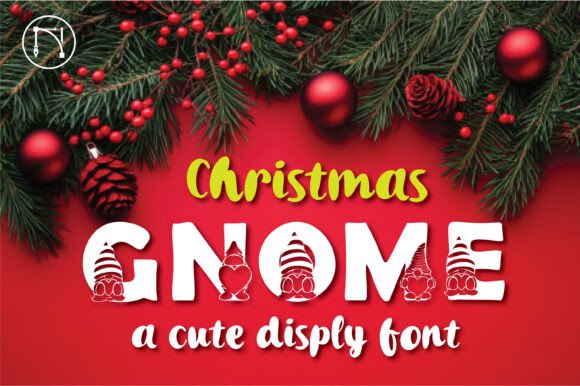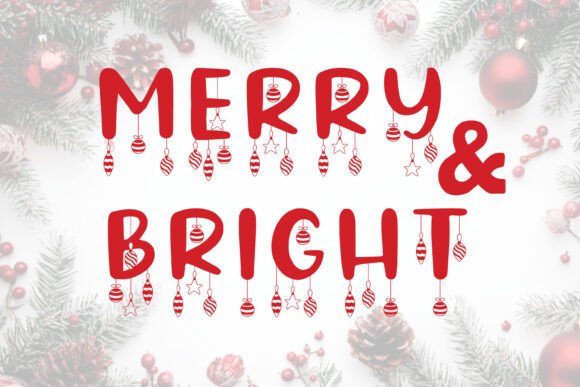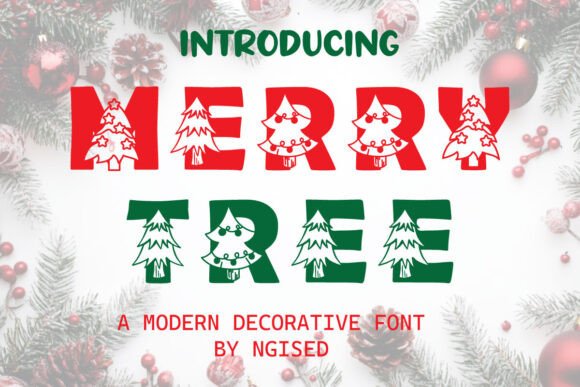
Merry Ball Charm Collection Font
The Merry Ball Charm Collection Font Bundle is a festive collection of unique fonts designed to enhance holiday-themed projects. Featuring a variety of Christmas-inspired fonts, this bundle offers creative options for everything from greeting cards to seasonal branding. Each font is designed with intricate details, such as candy canes, Christmas balls, trees, and snowflakes, making them perfect for festive invitations, posters, social media graphics, and more.